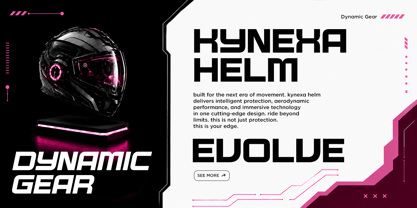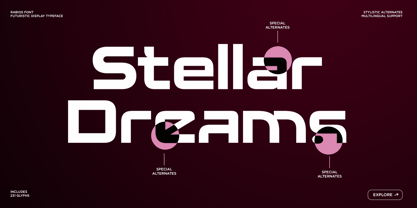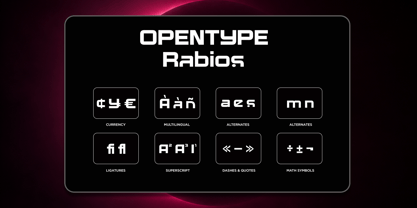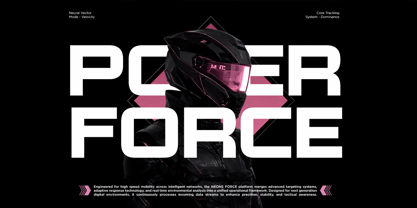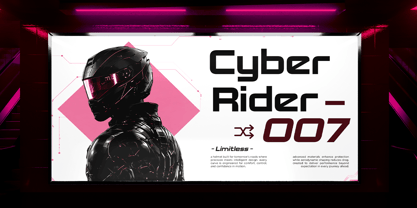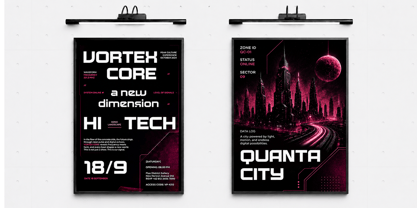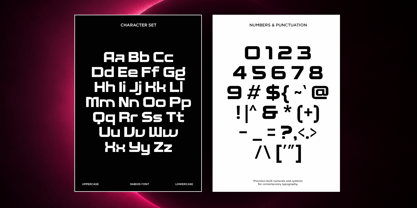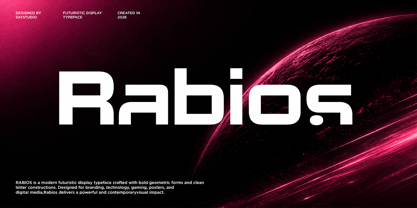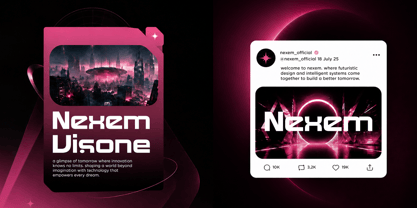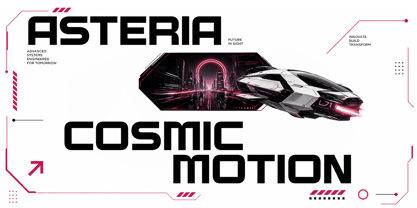
Rabios
Rabios is a bold futuristic display typeface designed to bring a powerful technological presence to your creative projects. Featuring geometric construction, rounded corners, and clean modular letterforms, this typeface delivers a sleek sci-fi aesthetic that feels modern, innovative, and forward-thinking. Its strong visual impact makes it perfect for large headlines, branding systems, and digital experiences where attention and clarity matter most. Futuristic display fonts often rely on geometric shapes, minimal forms, and tech-inspired details to communicate innovation and modernity, and Rabios embraces these characteristics with a distinctive contemporary style.
Built for designers who want to create futuristic identities, Rabios works exceptionally well across technology brands, gaming projects, startup campaigns, esports visuals, UI concepts, automotive branding, product packaging, and digital advertising. The combination of smooth curves and engineered proportions creates a professional yet experimental appearance that feels equally suitable for cyberpunk-inspired artwork and modern corporate branding.
Rabios includes Regular and Italic styles, 231 glyphs, and stylistic alternates, providing flexibility for creative exploration. Whether you're designing logos, posters, album covers, website headers, app interfaces, or futuristic promotional materials, Rabios helps your typography stand out with confidence and a distinctly next-generation personality.
• Regular and Italic Style
• Stylistic Alternates
• Uppercase and Lowercase
• Multilingual Support
• Number, Symbol, and Punctuation